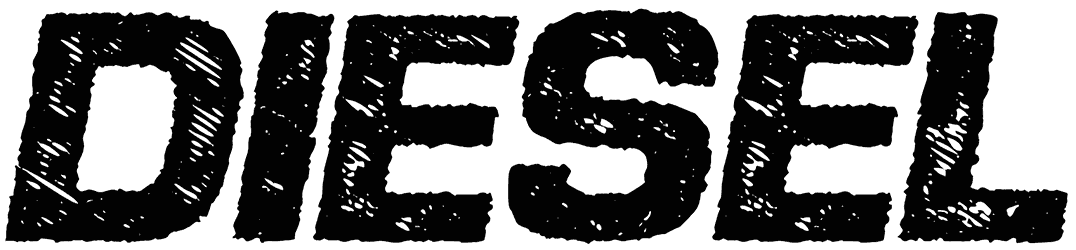
Diesel Font
Your design will have a strong, worn style if you use this industrial font for your text. The bold and old face of this all-caps font’s characters will make your action movie poster unique and impressive. The Diesel font doesn’t support lowercase letters, numbers, and punctuation marks, but we invite you to test it for your creative layout and see how amazing it will be.